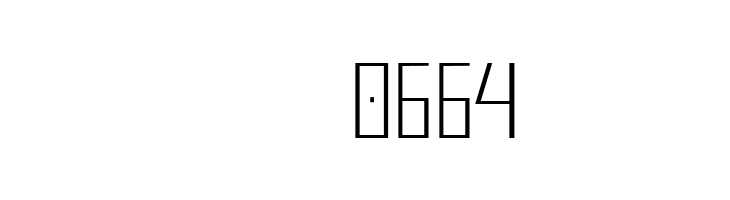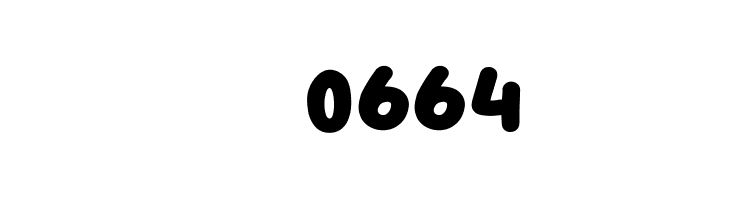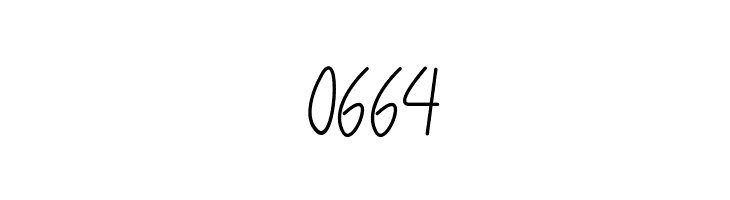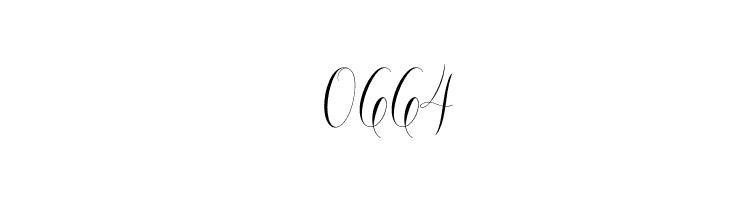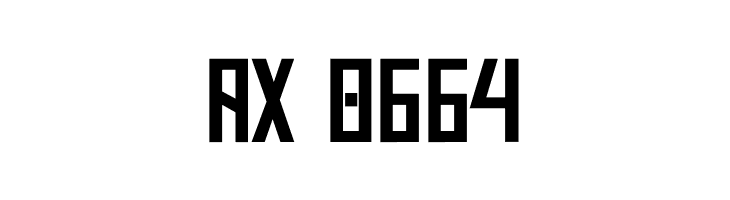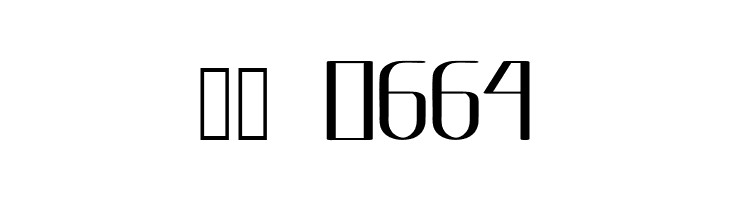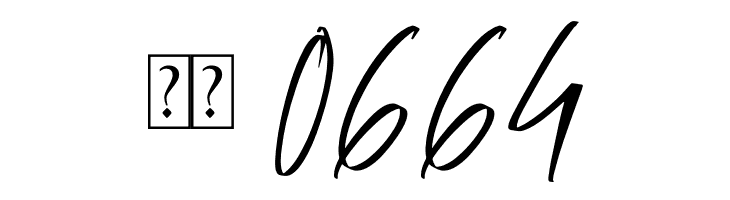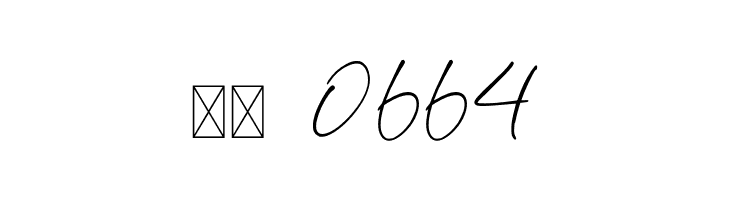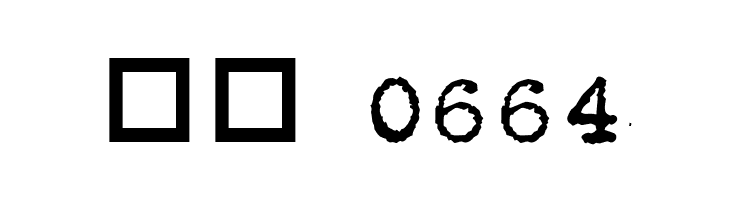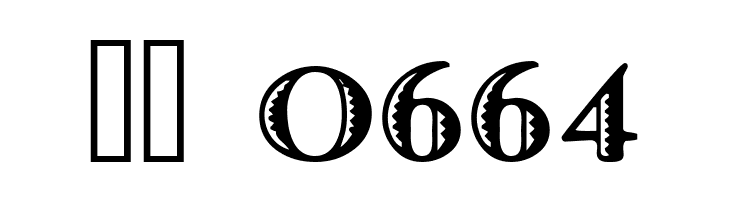
A dynamic, handwritten font with fluid strokes and artistic flair.
A bold, cursive font with smooth, flowing lines and a dynamic, elegant style.
A bold, geometric font with sharp angles and a modern aesthetic.
A geometric, angular font with thin strokes and a modern, minimalistic style.
A geometric, angular font with thin, hairline strokes and a modern, minimalist style.
A bold, geometric font with sharp angles and a modern, assertive style.
A bold, blocky font with a modern, industrial feel.
A modern, geometric font with angular and minimalist design.
A cursive, handwritten font with elegant, flowing strokes.
A bold, geometric serif font with a modern and classic blend.
A bold, geometric font with rounded edges and sharp angles for a modern look.
A bold, italicized font with a modern and slightly decorative style.
A hollow, geometric font with a modern and angular design.
A bold, italic font with a dynamic and modern style.
A modern, geometric font with consistent stroke width and a sleek design.
A sleek, italic font with modern elegance and classic charm.
An elegant and flowing script font with intricate curves and sophisticated swashes.
An elegant script font with flowing, decorative letterforms.
An elegant script font with intricate loops and flourishes, exuding luxury and refinement.
A bold, playful font with thick outlines and a cartoonish style.
An elegant, flowing script font with a handwritten style.
A playful, handwritten font with fluid, cursive strokes and a casual style.
An elegant, flowing script font with ornate uppercase and connected lowercase letters.
An elegant, flowing script font with interconnected, cursive letters.
A bold, distressed typewriter-style font with a vintage, grunge aesthetic.
A vintage, typewriter-style font with a distressed, textured appearance.
A distressed, vintage typewriter-style font with a textured, aged appearance.
A distressed, vintage typewriter-style font with a rough, textured appearance.
A playful, bold font with rounded, bubble-like characters.
A playful, bold font with rounded, bubbly characters and a friendly appearance.